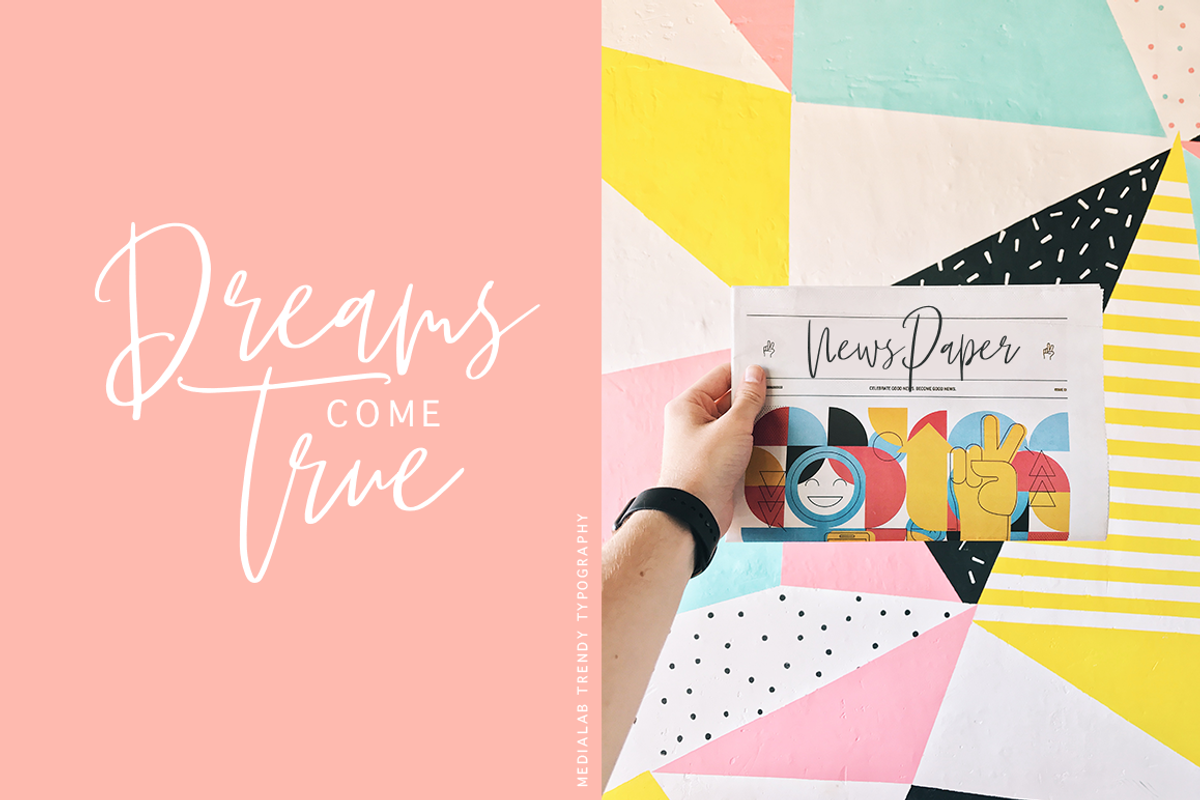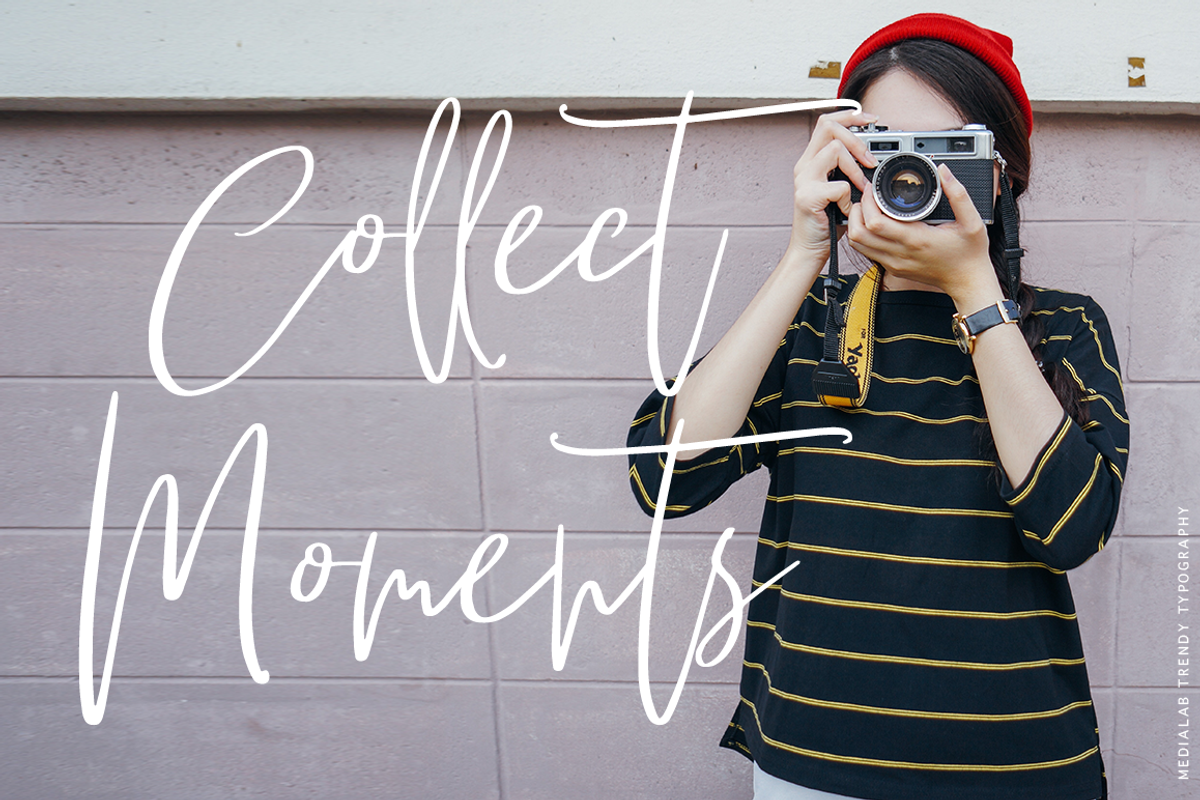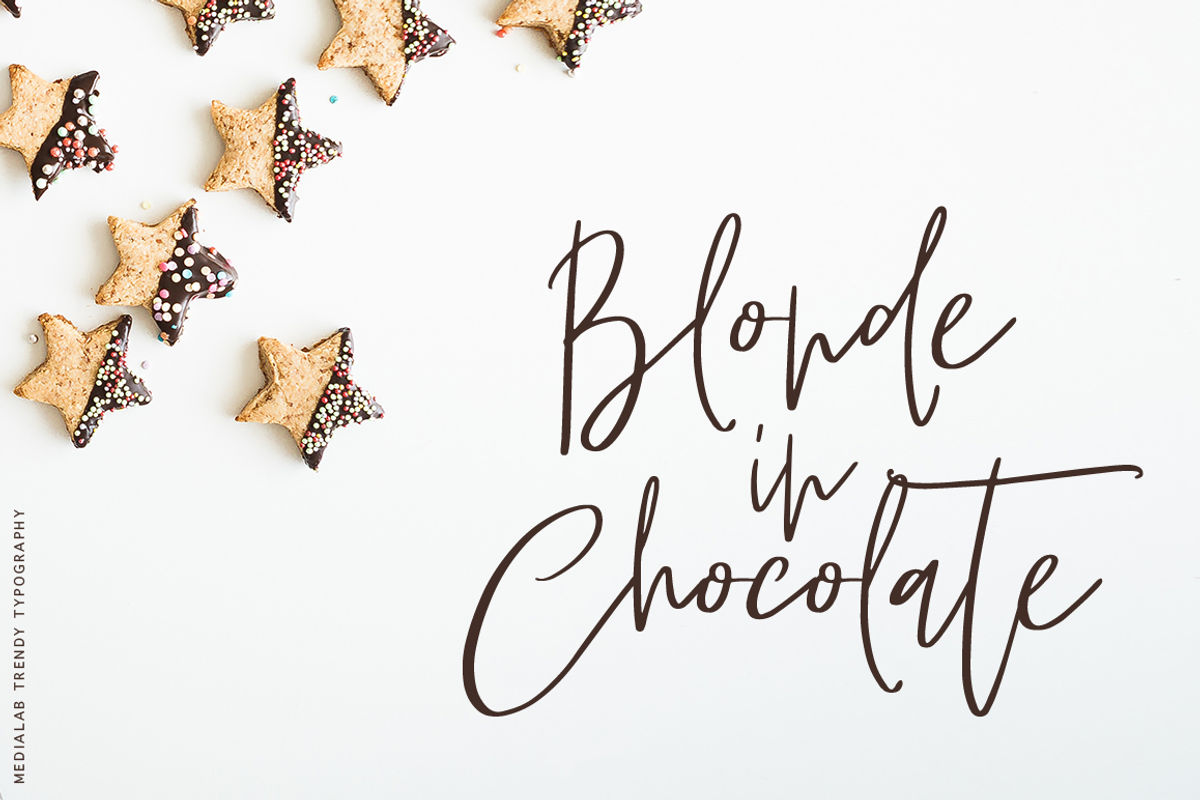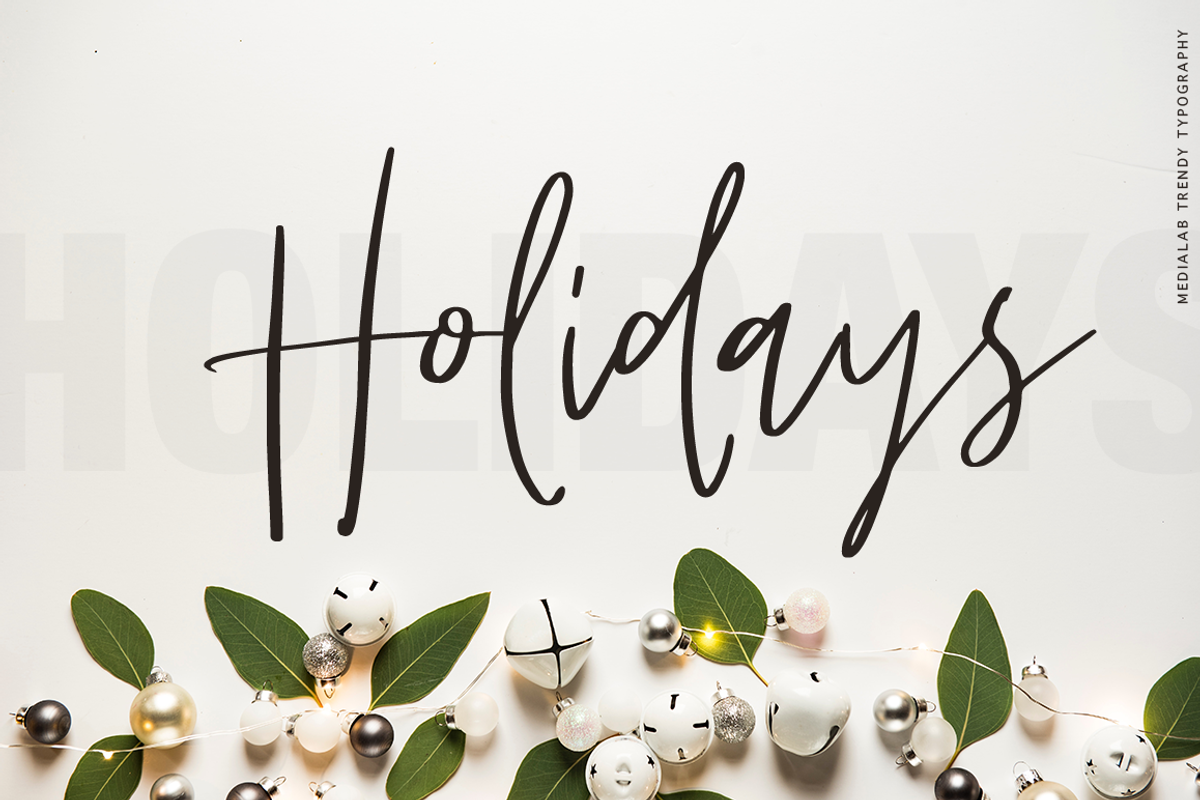
Puzzled is a modern calligraphy script has been attentively written, with gentle curves to produce a font that’s completely distinctive and original.
It contains a full set of lower & uppercase letters, a large range of punctuation, numerals, and multilingual support. Perfect for adding an elegant and unique touch to your lettering projects and branding.
Also with their help, you can create Wedding lettering or a beautiful frame for your home. Or just use it for your small business, book covers, stationery, marketing, magazines and more.